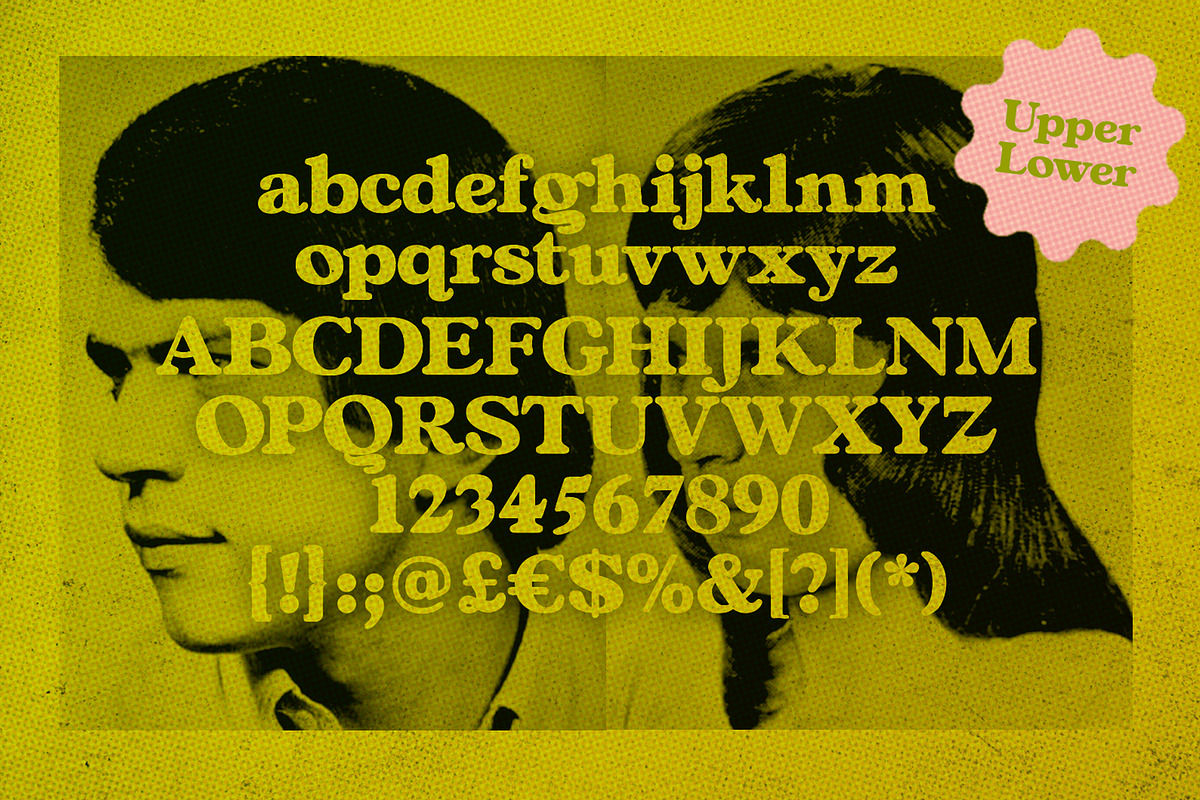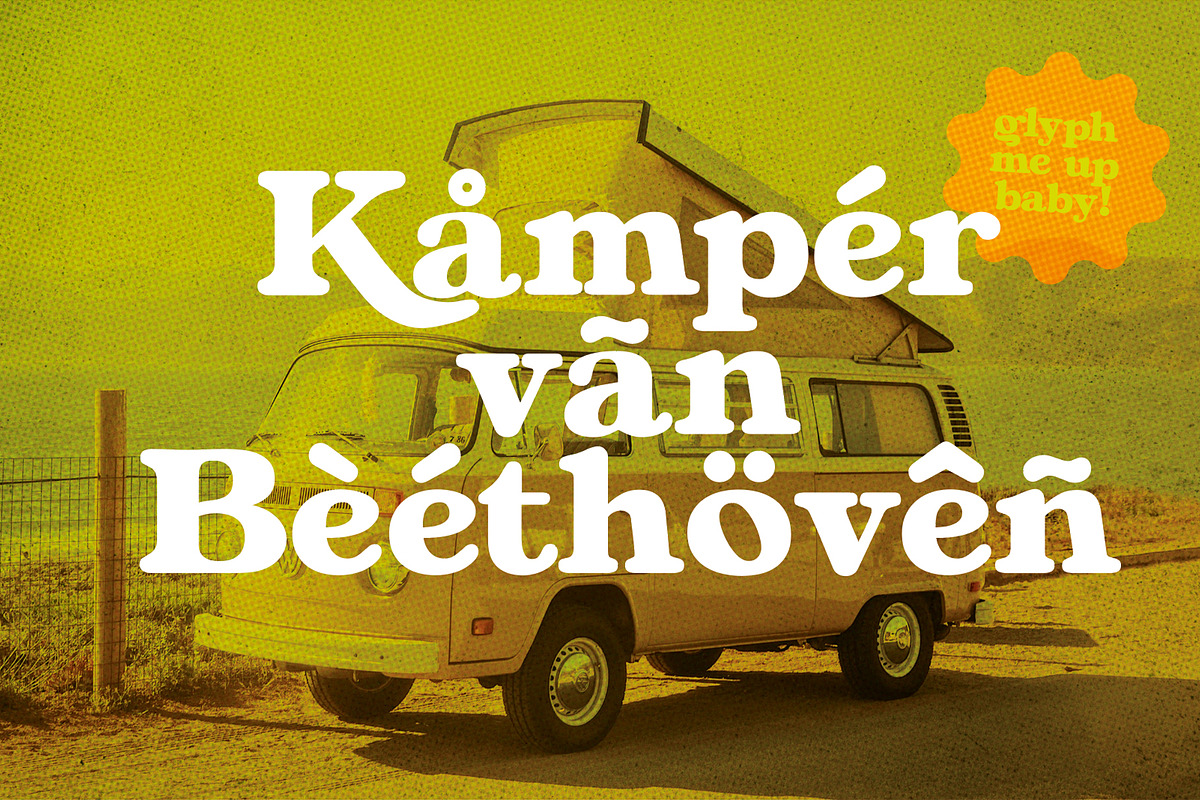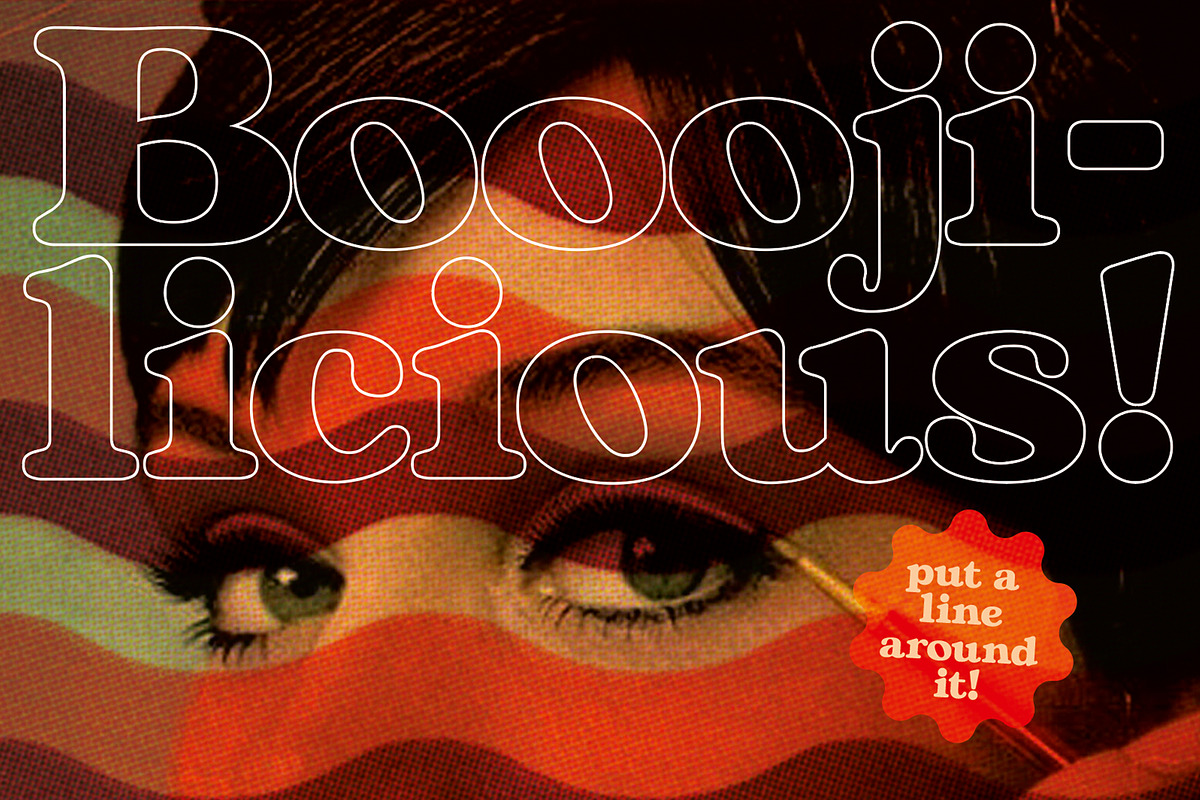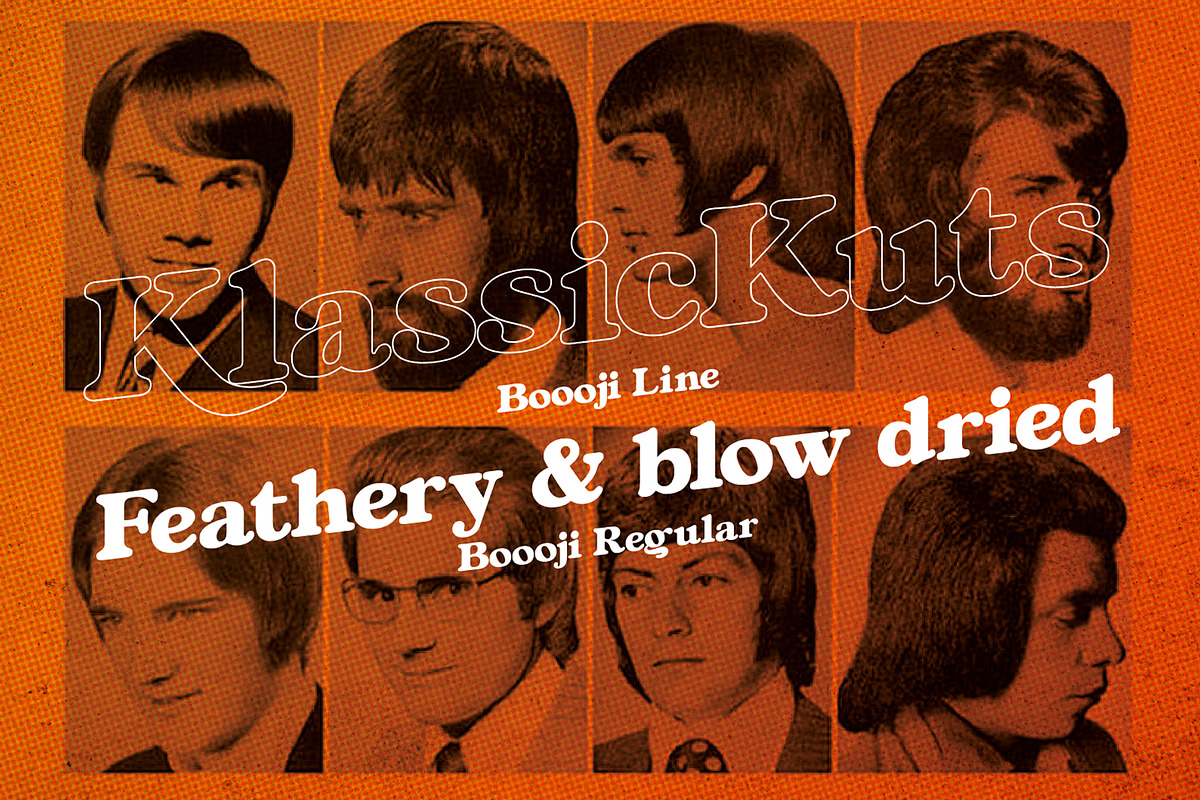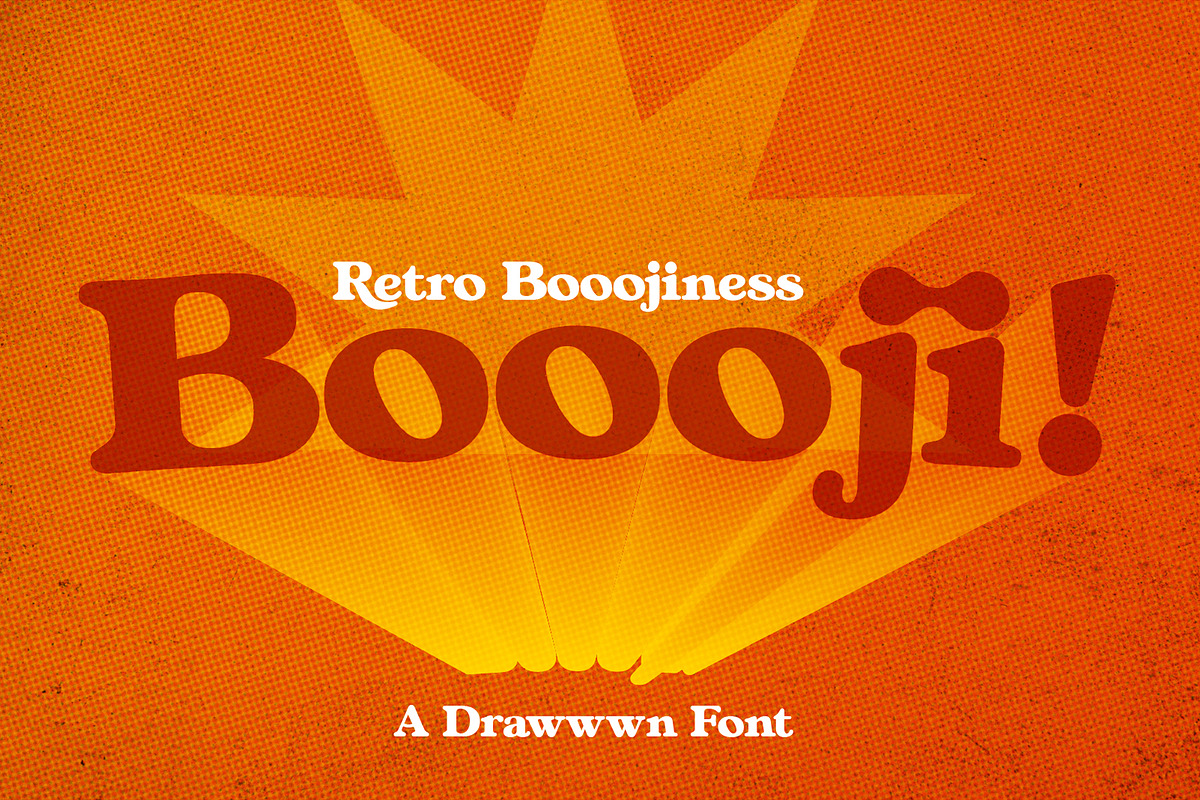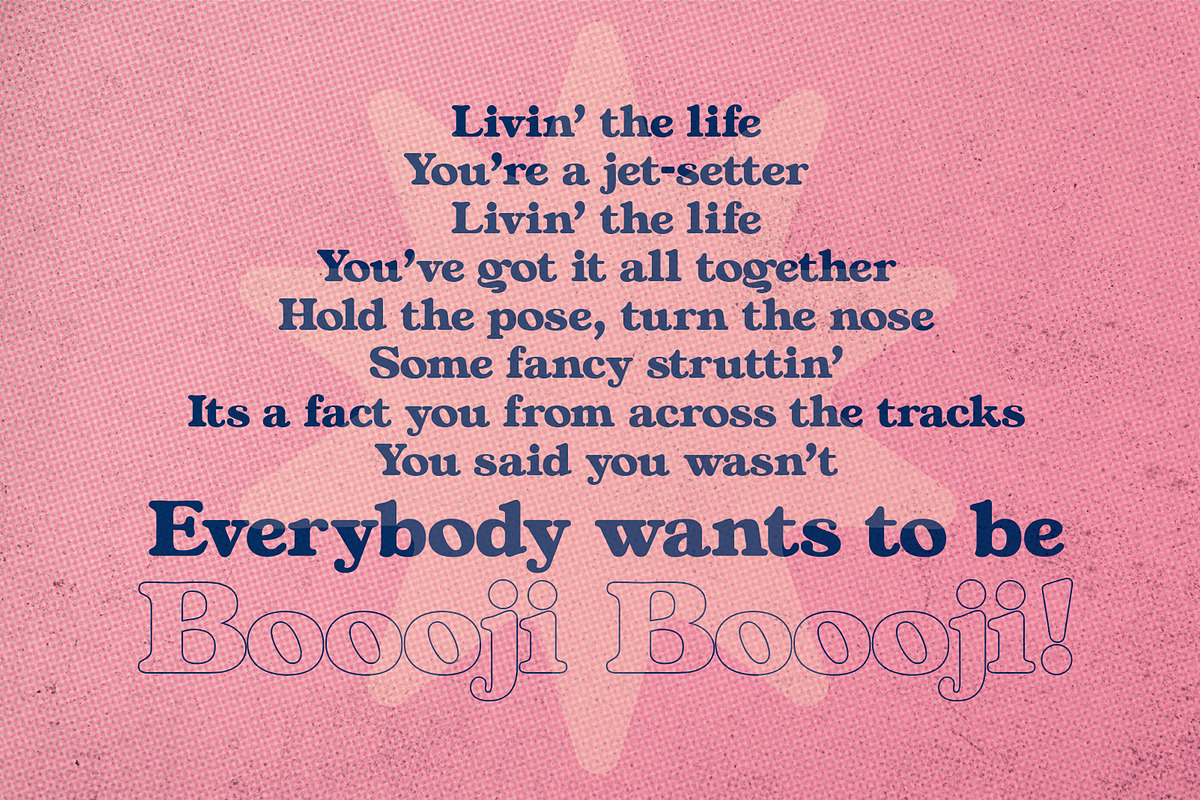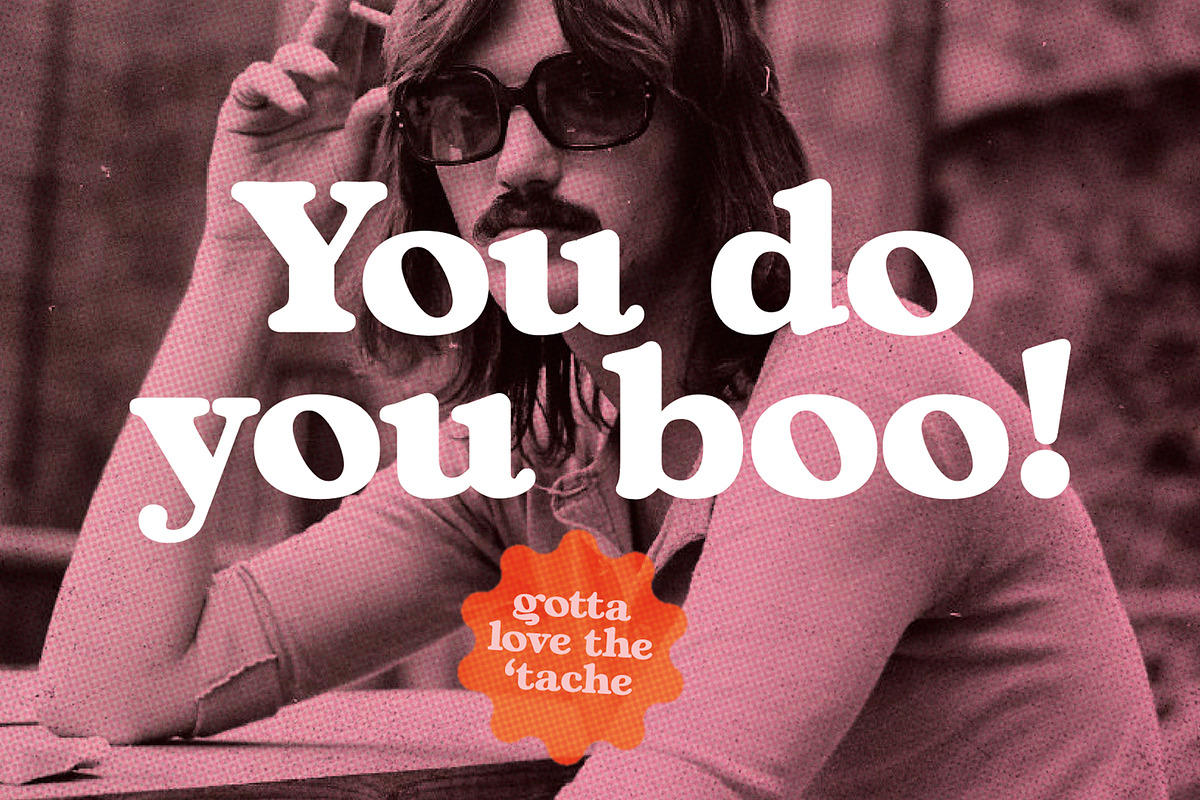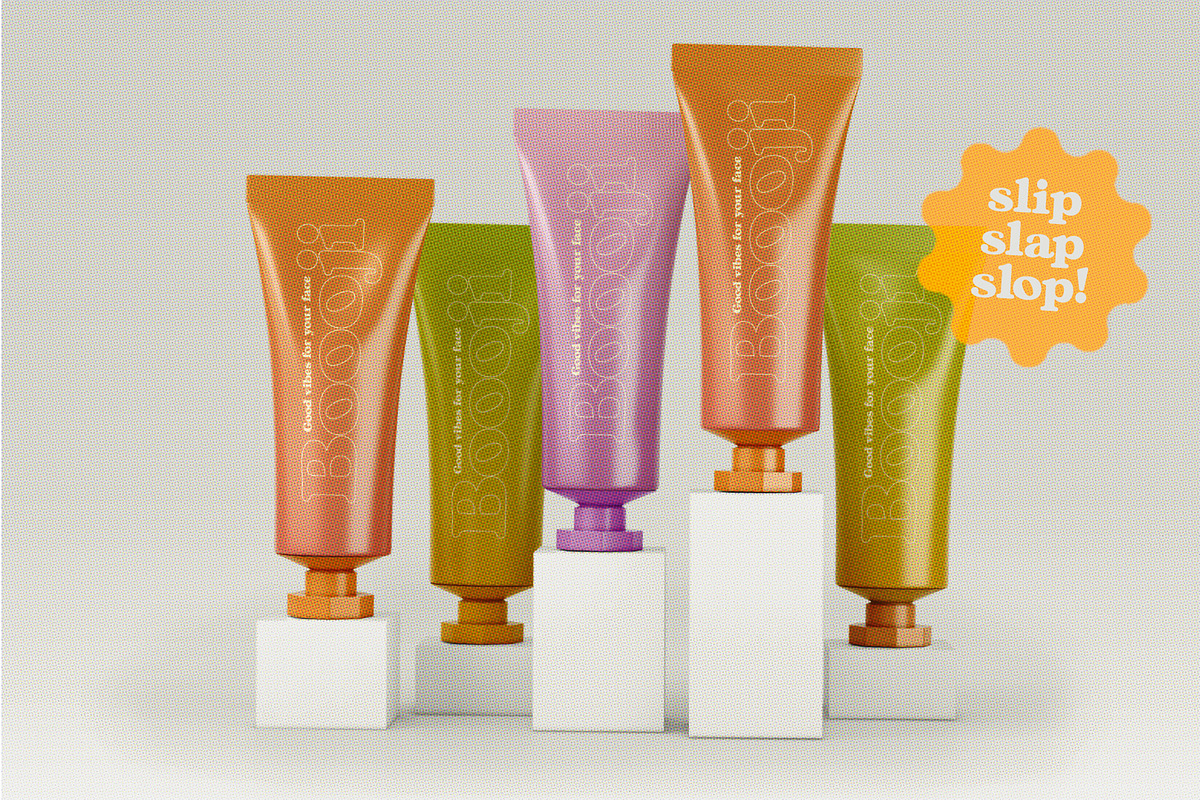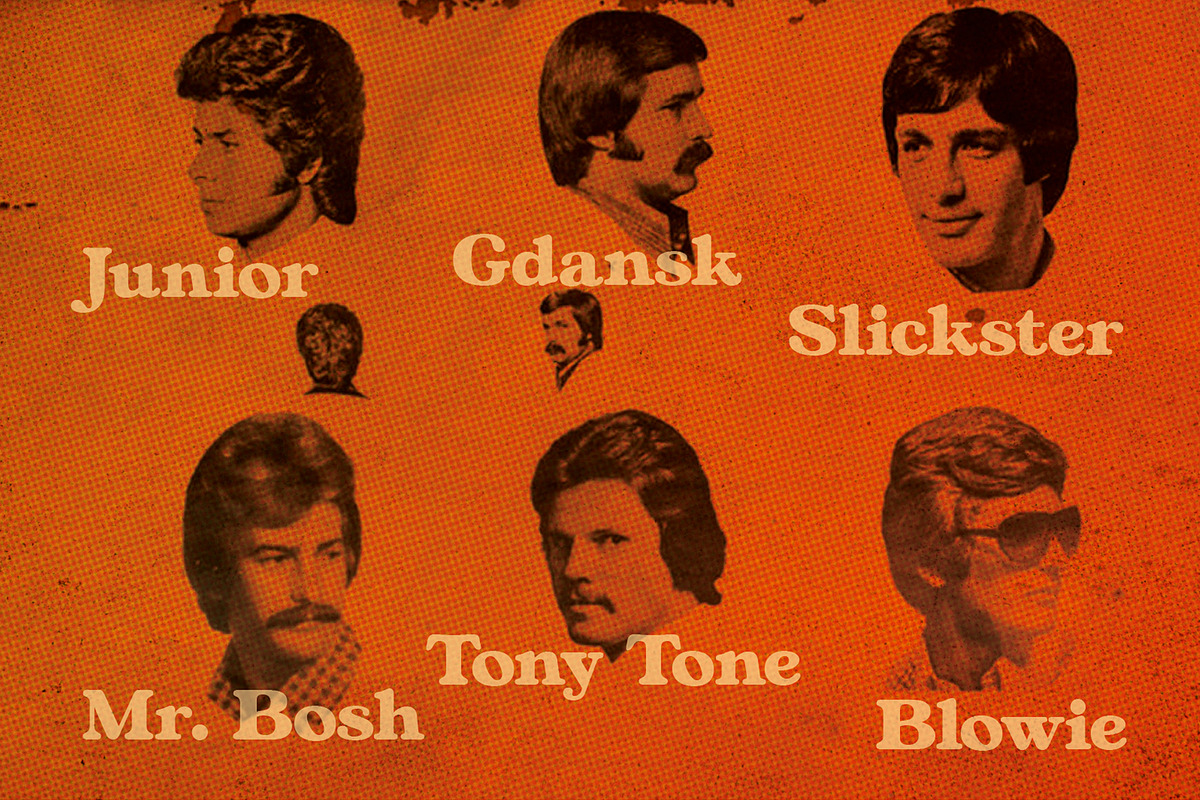
Boooji | 70s retro serif
Boooji is cool retro 70's inspired font. Perfect if you fancy growing your hair and sideburns long and bushy. Think Boooji Nights and Boooji Wonderland. Do say, yes sir I can Boooji! Don't say blame it on the Boooj!